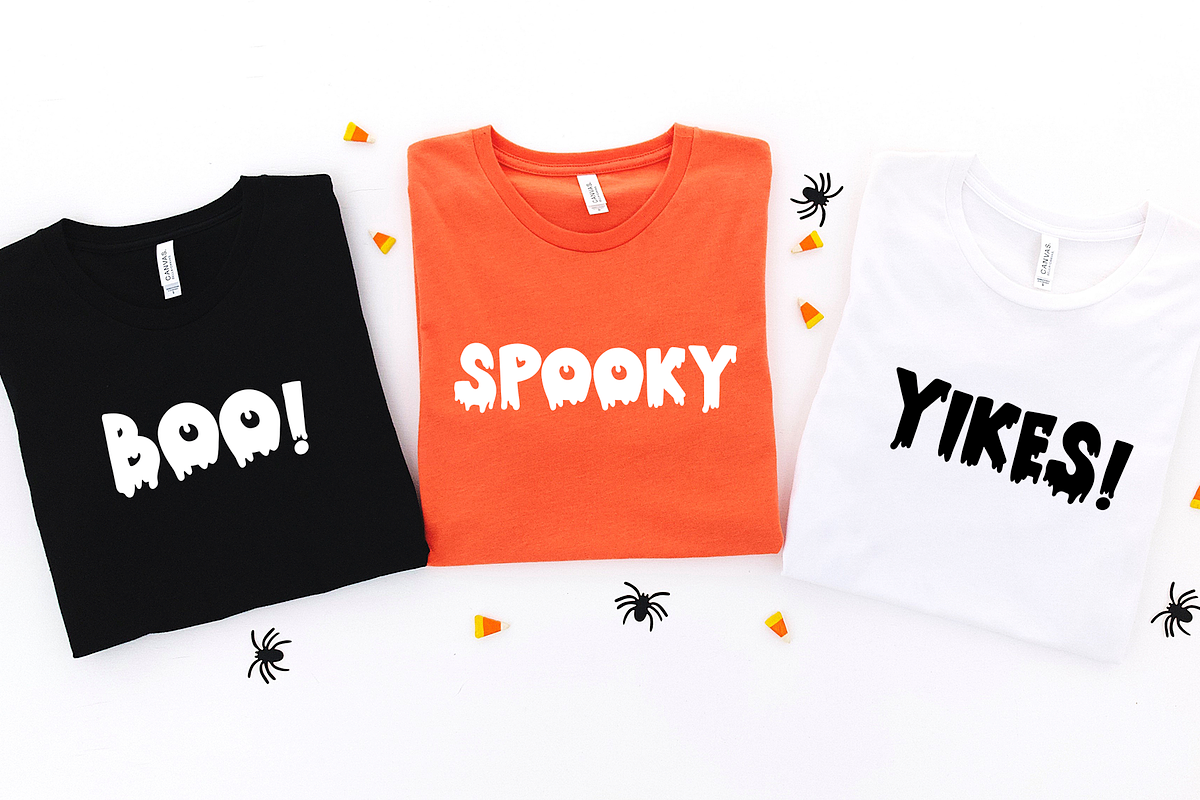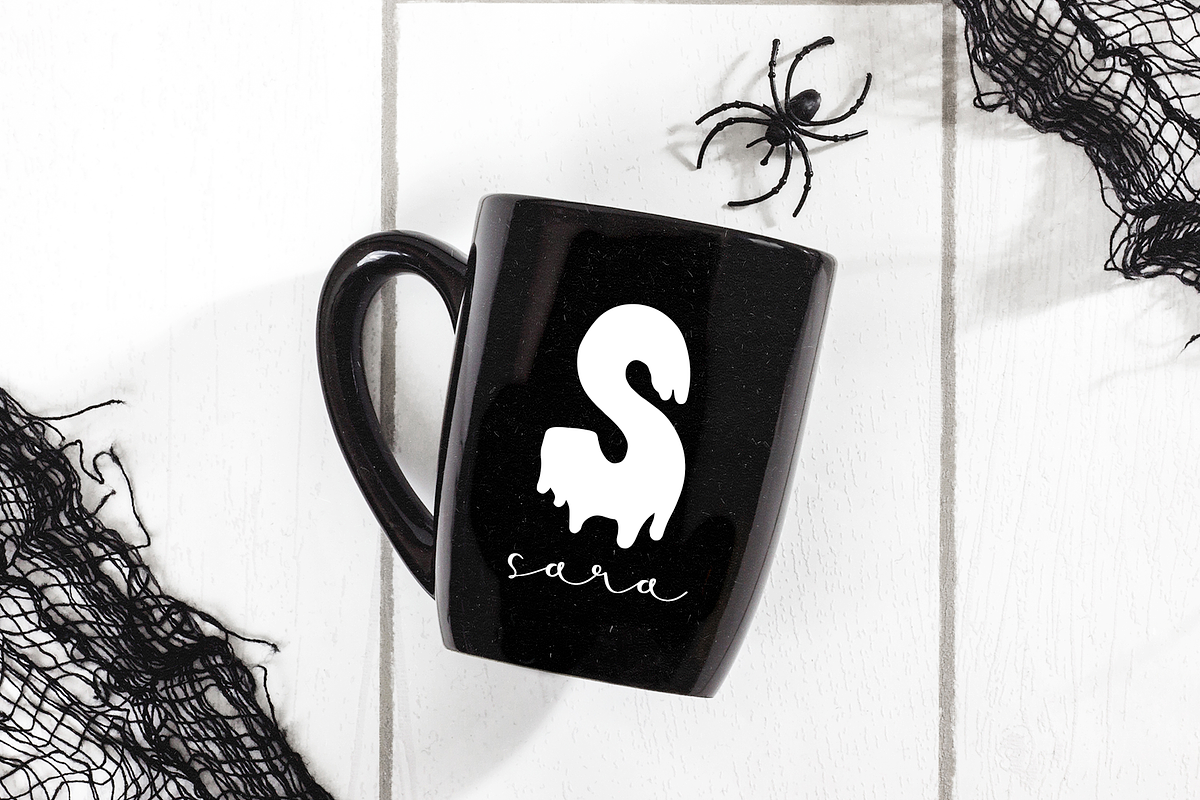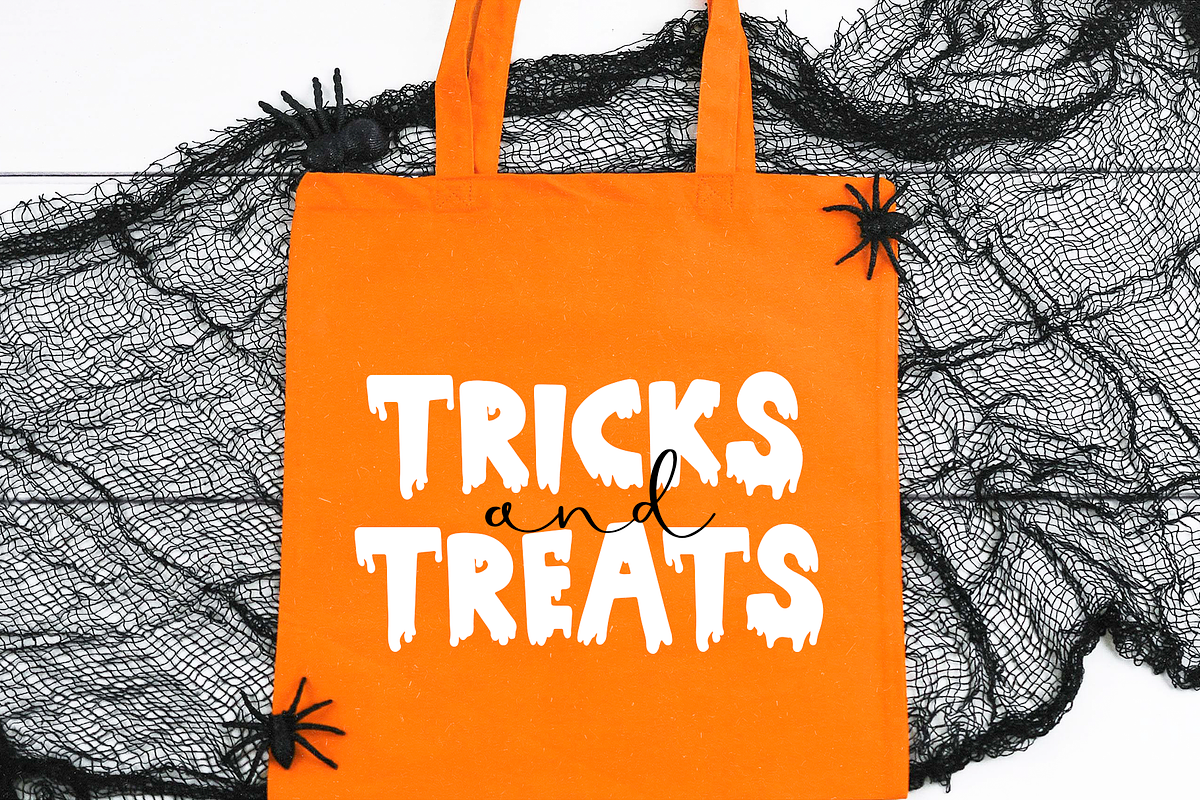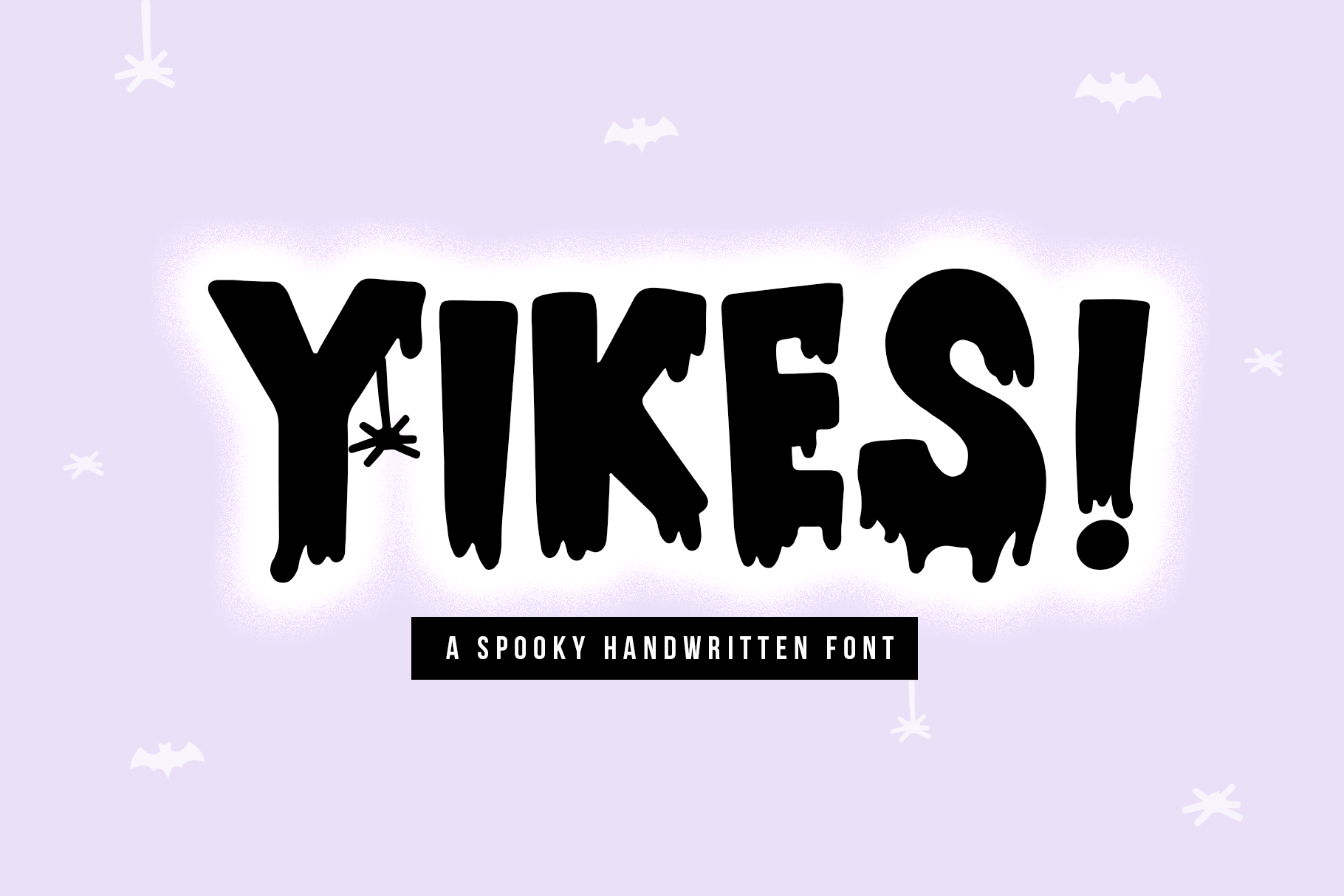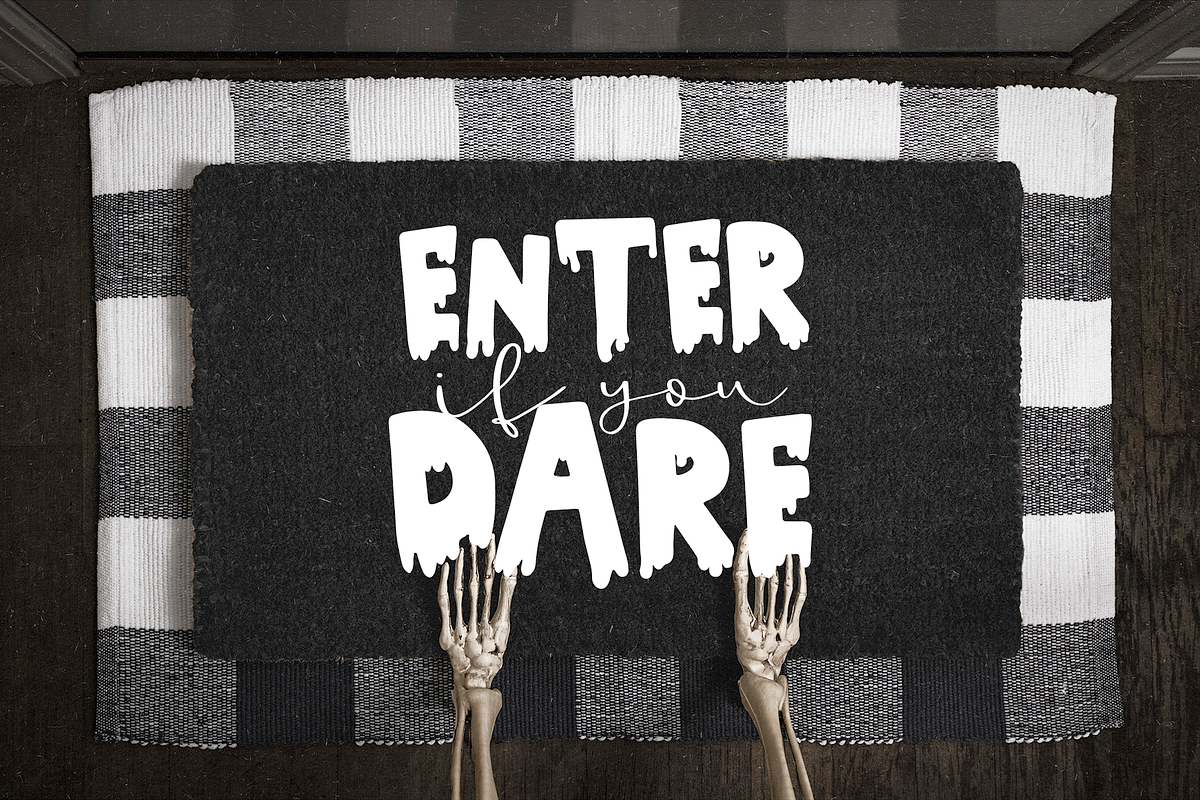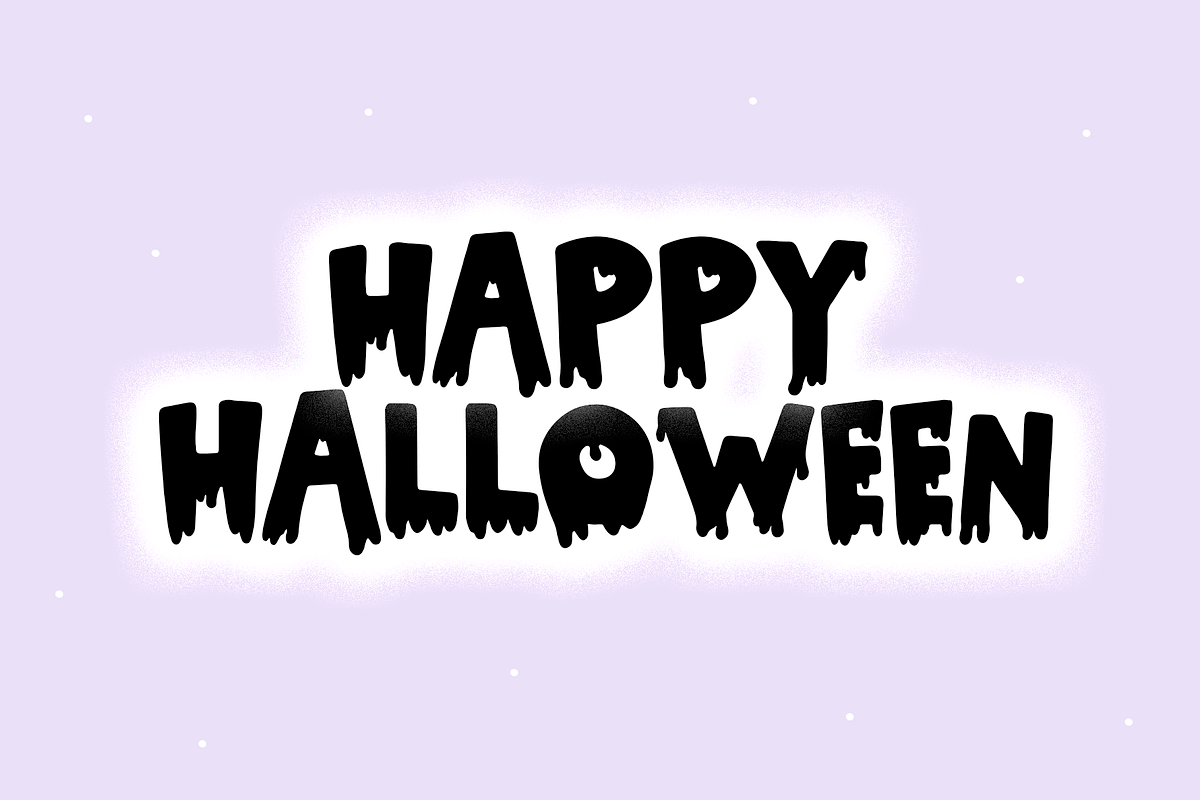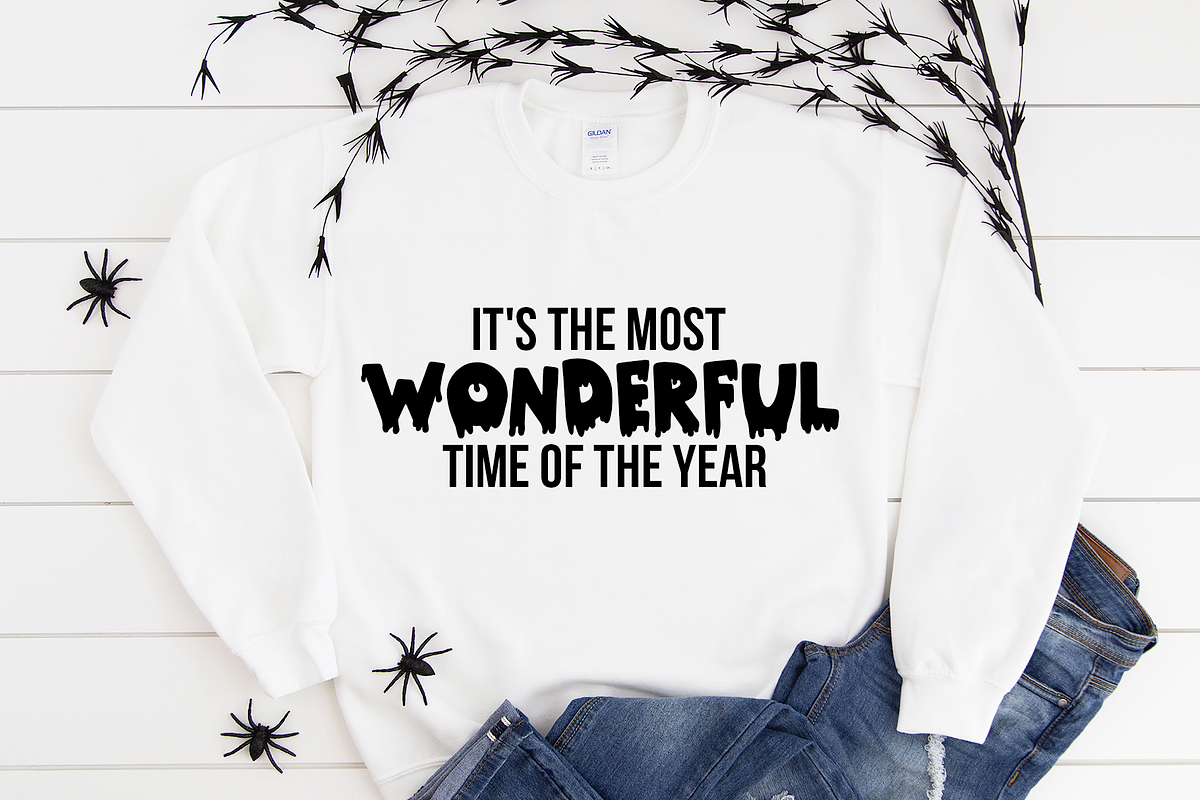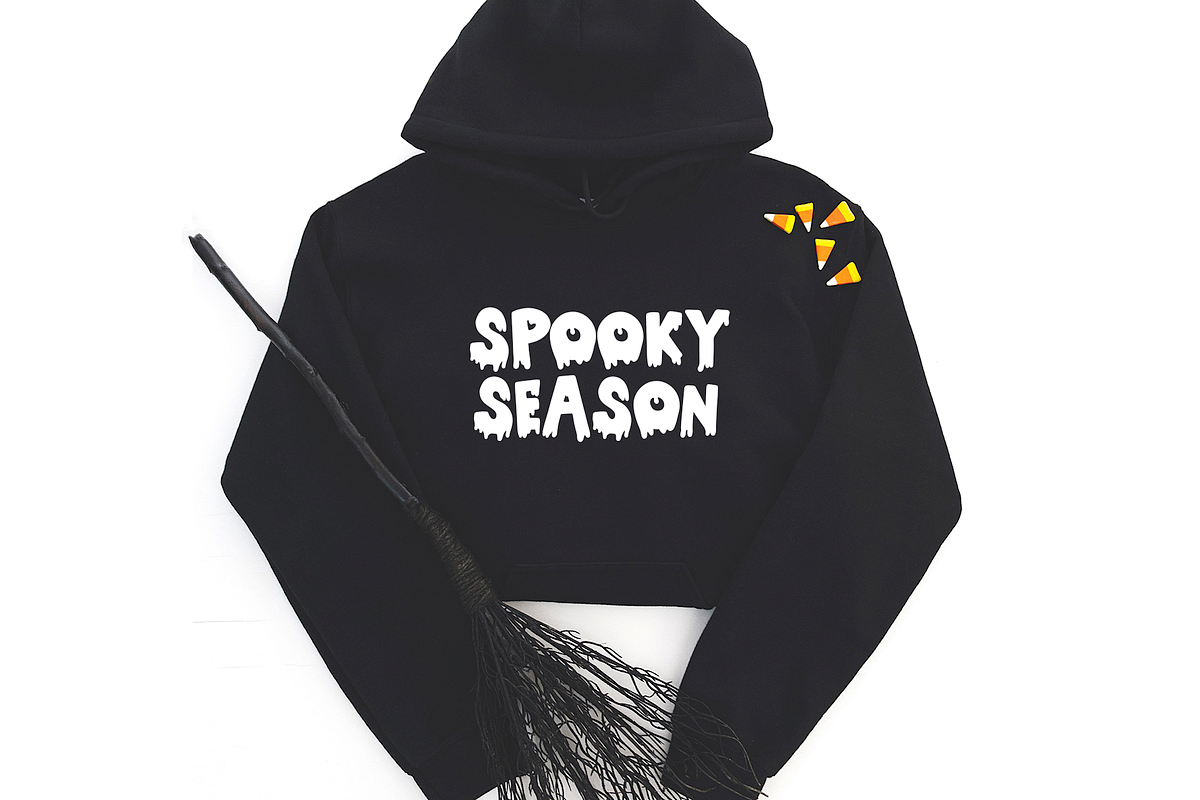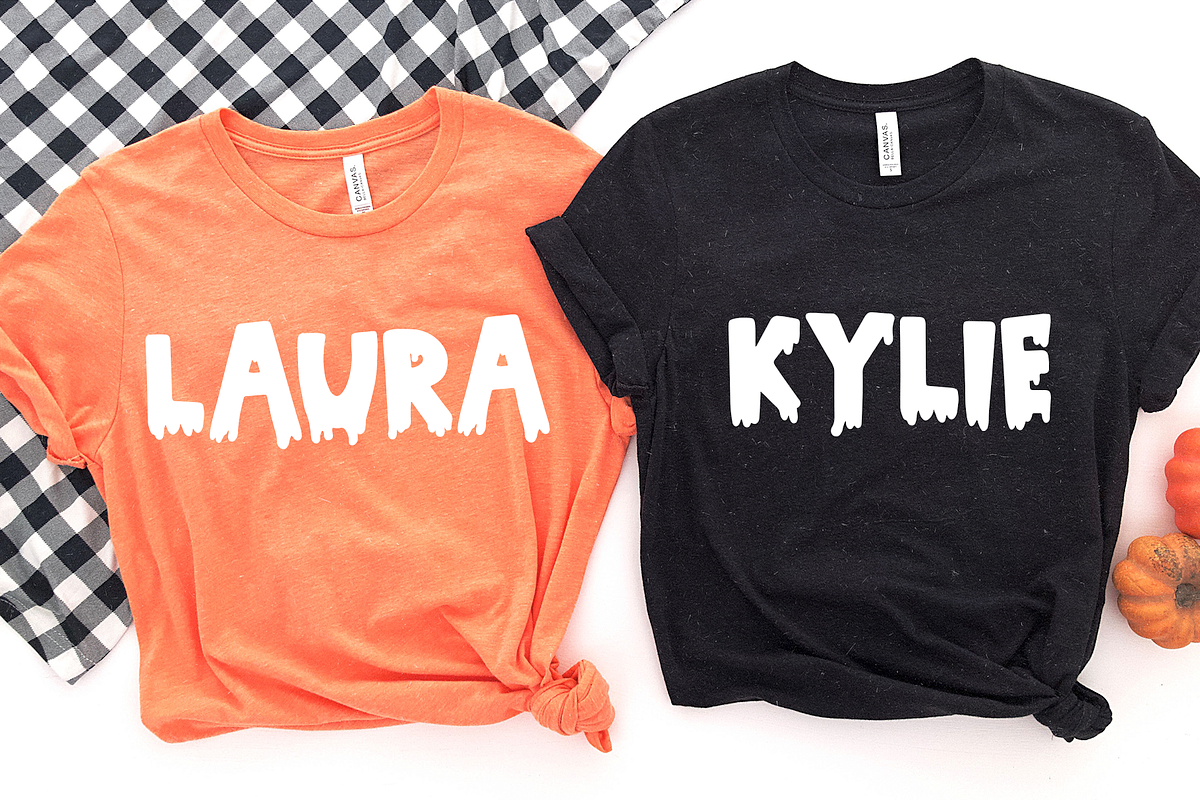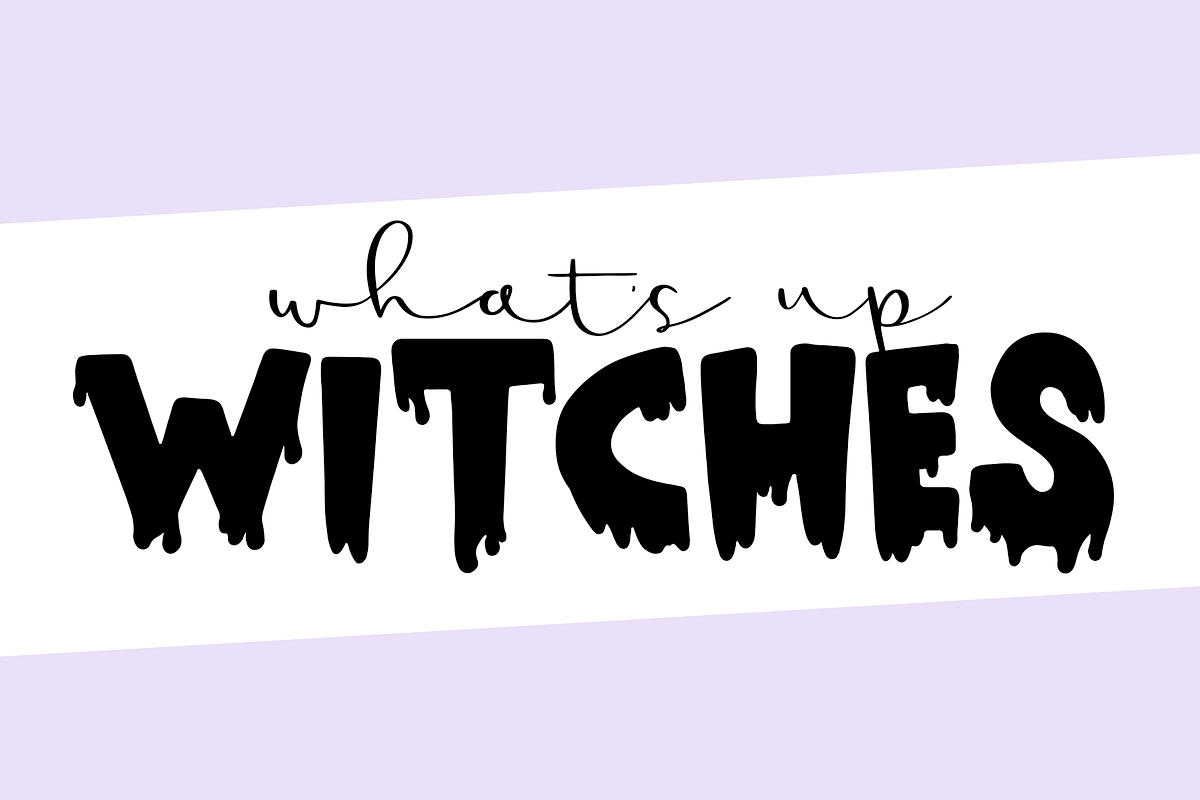
Yikes | Dripping Halloween Font
Yikes is a spooky halloween font with a dripping effect.
This font is perfect for all of your halloween designs, decor, svg designs, shirts, mugs, social media, signs and more!